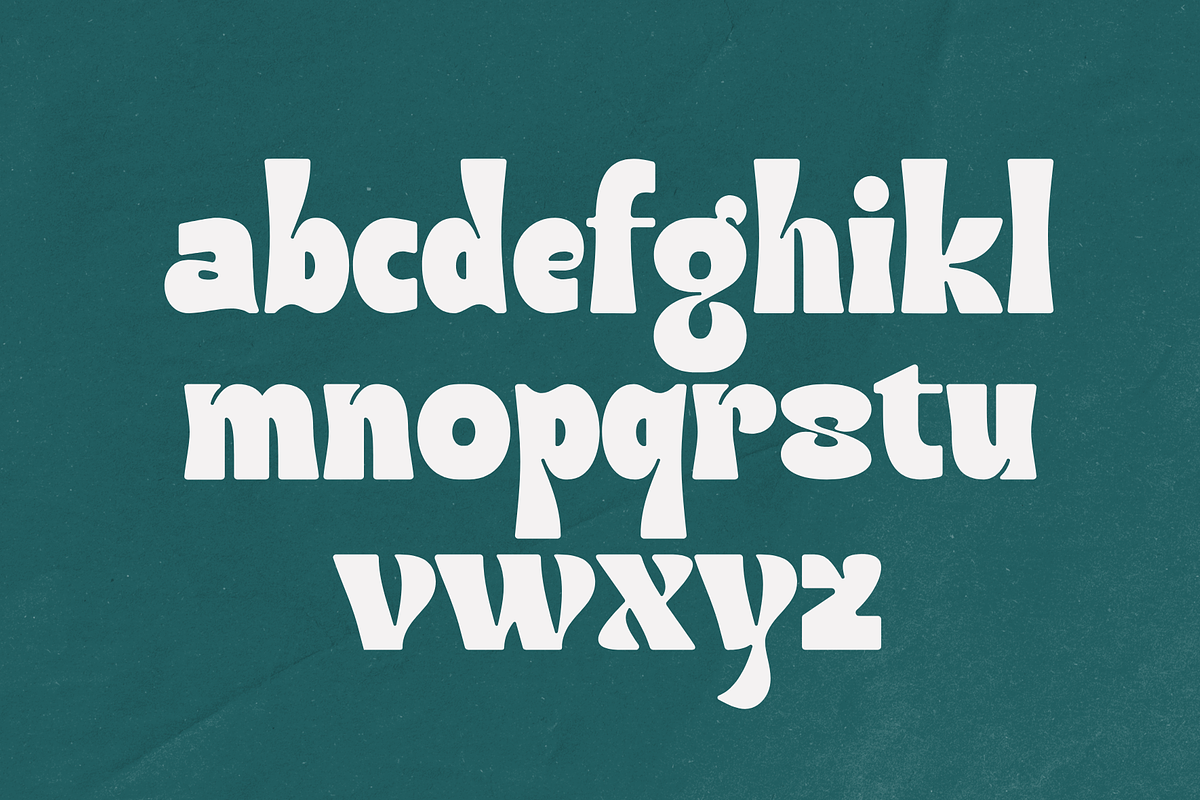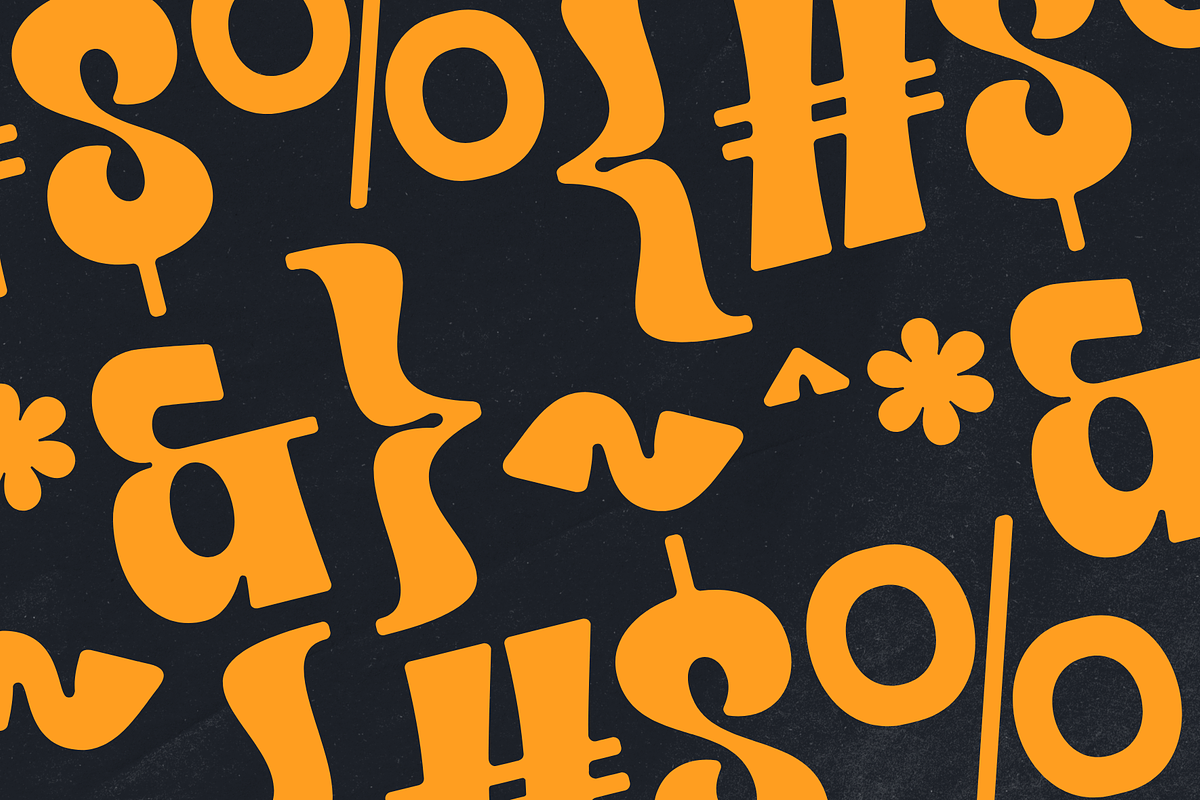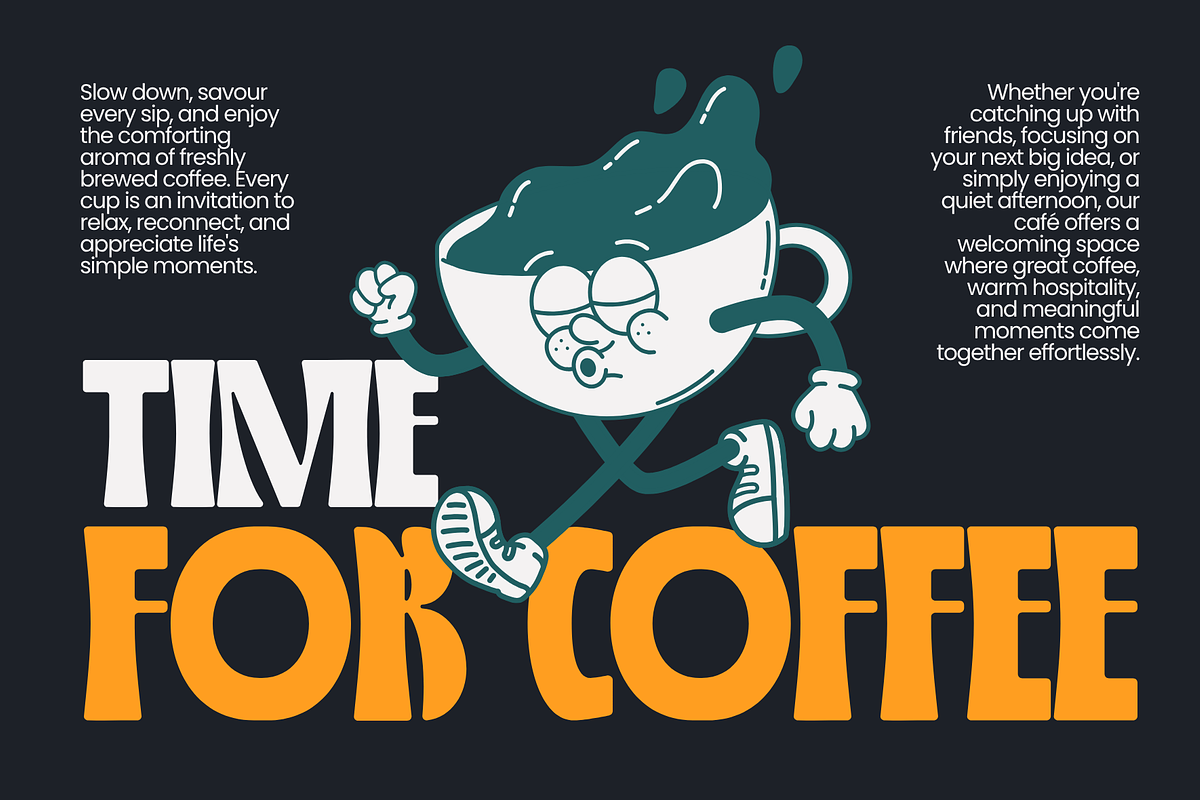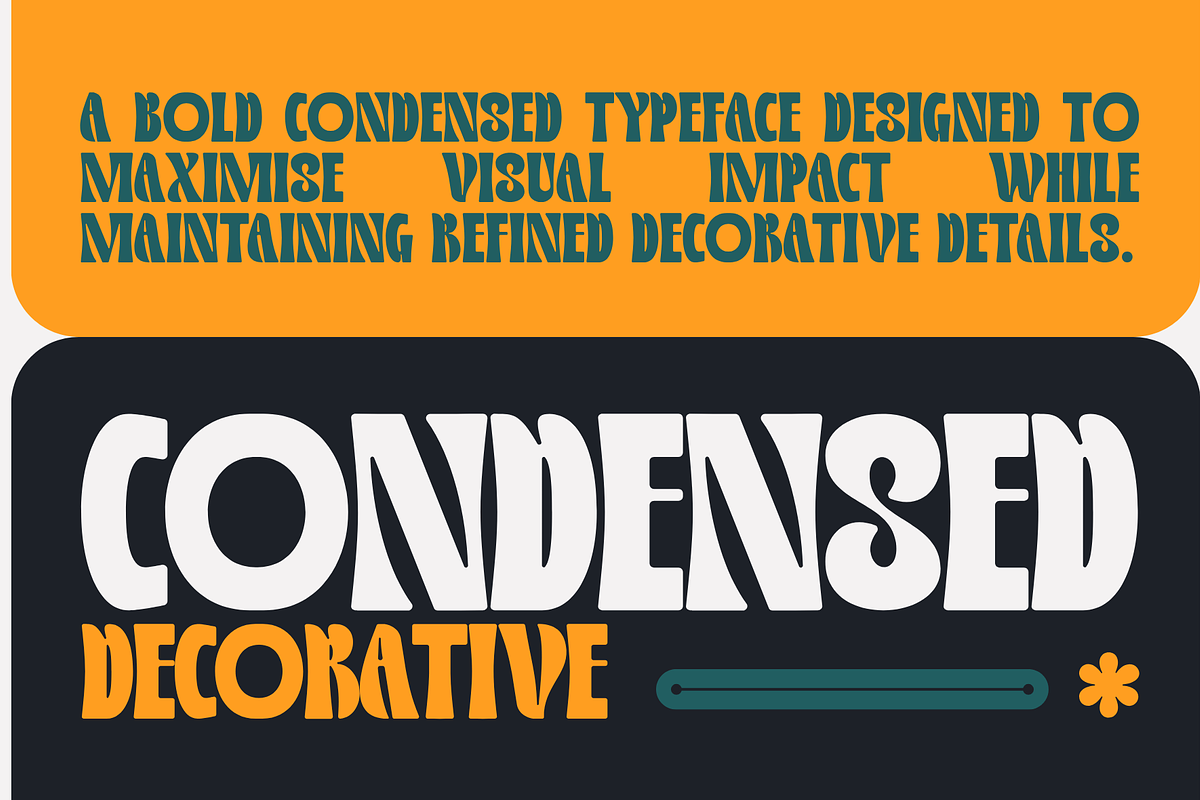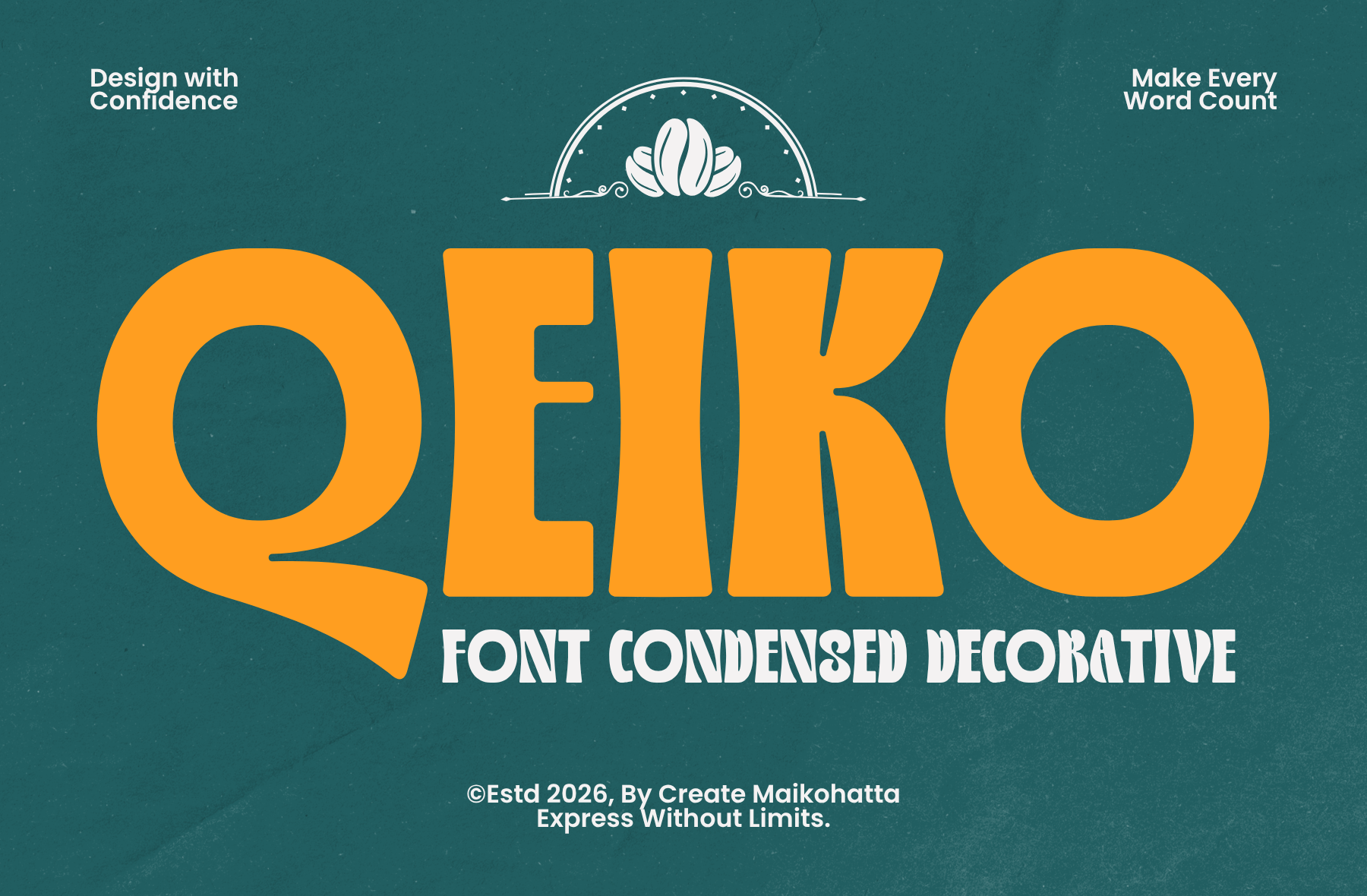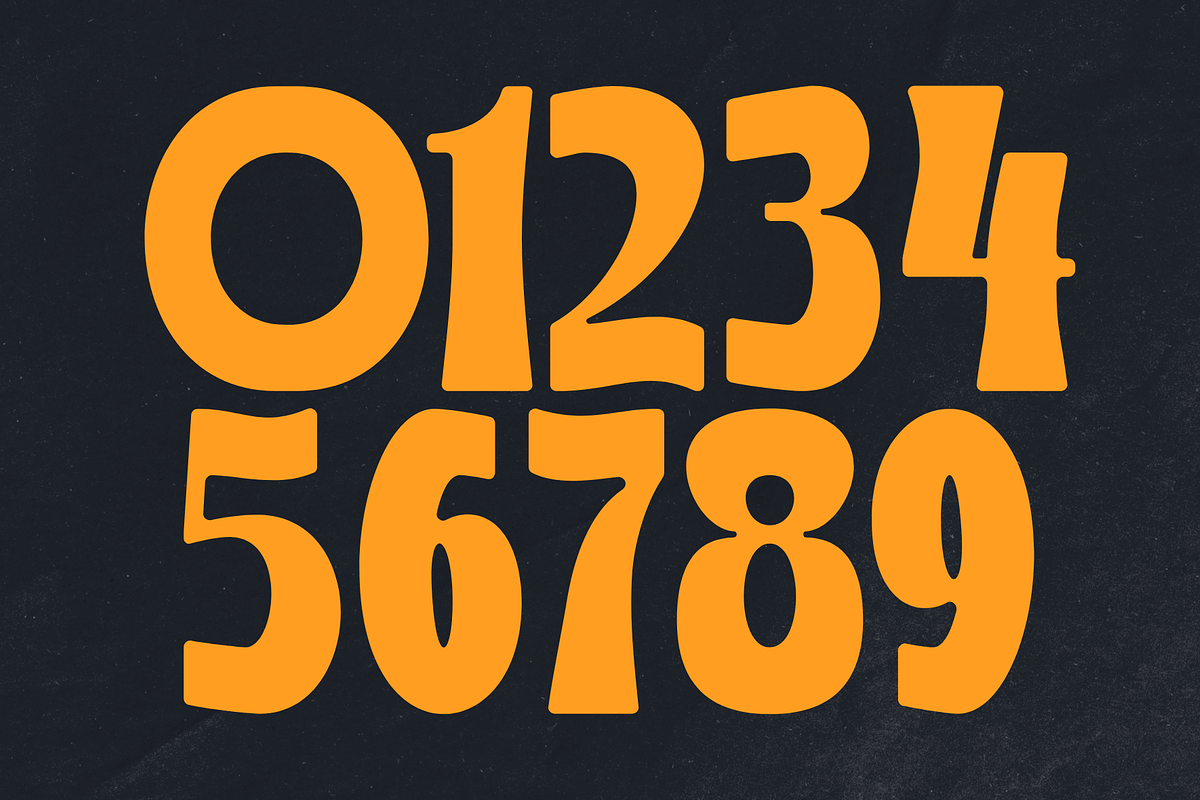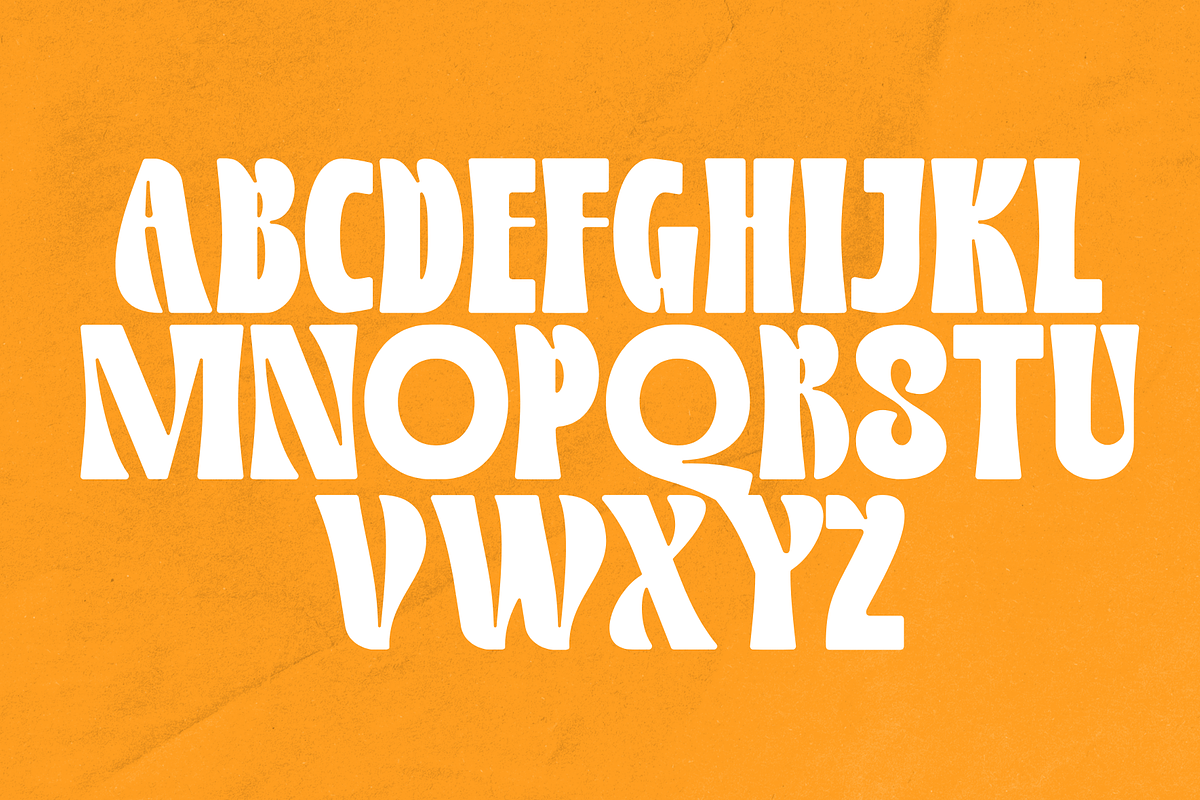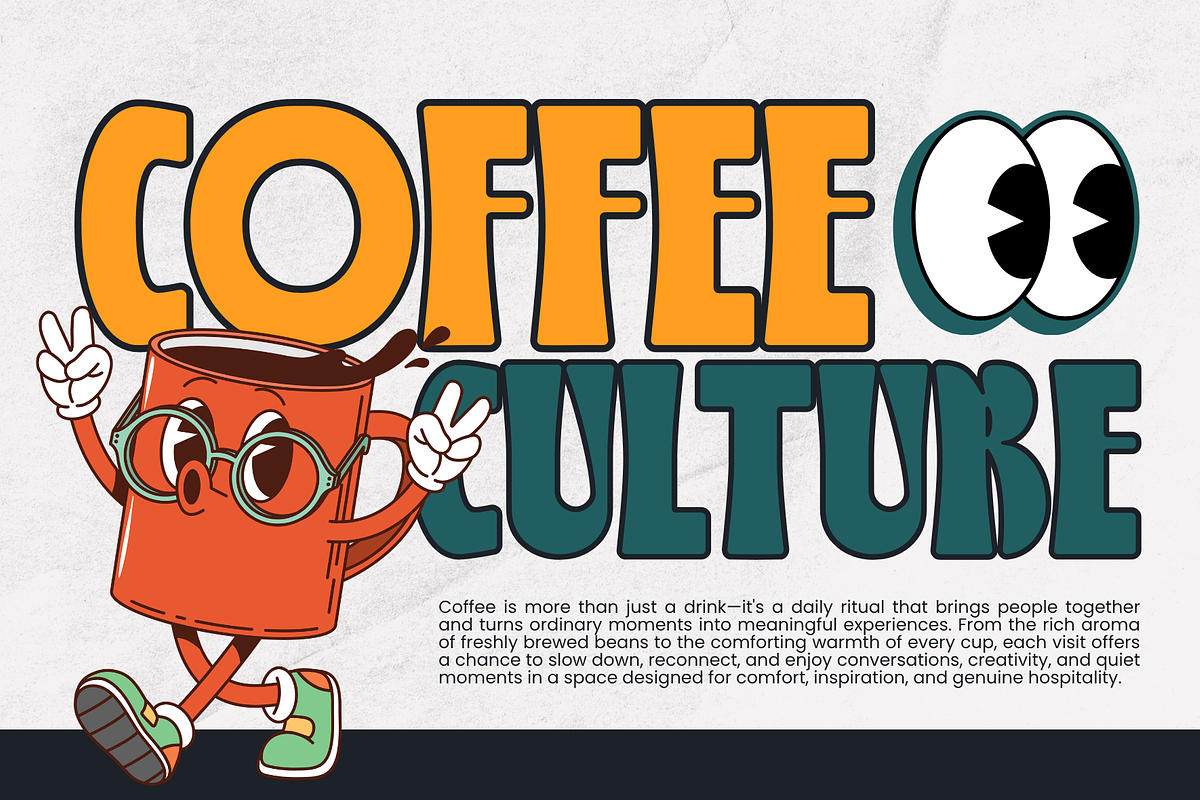
Qeiko–Bold Condensed Decorative Font
Introducing our new product Qeiko – Bold Condensed Decorative Font
Qeiko is a bold condensed decorative font inspired by vintage display typography with a modern twist. Featuring thick letterforms, compact proportions, and distinctive decorative details, this typeface delivers a strong visual impact while maintaining excellent readability. Its unique personality makes every headline stand out with confidence and style.
Designed for creatives who want to create eye-catching visuals, Qeiko is perfect for logos, branding, posters, packaging. Whether you're working on retro-inspired projects or modern branding, Qeiko provides a memorable and expressive look that captures attention instantly.